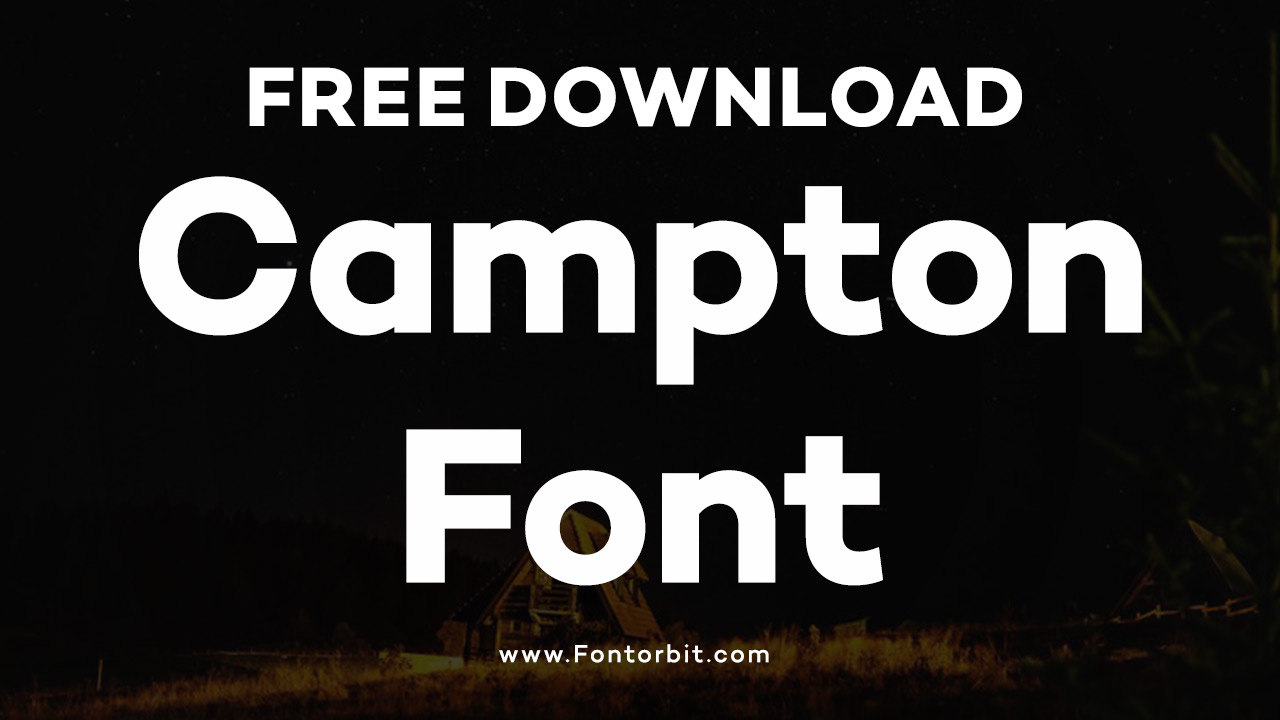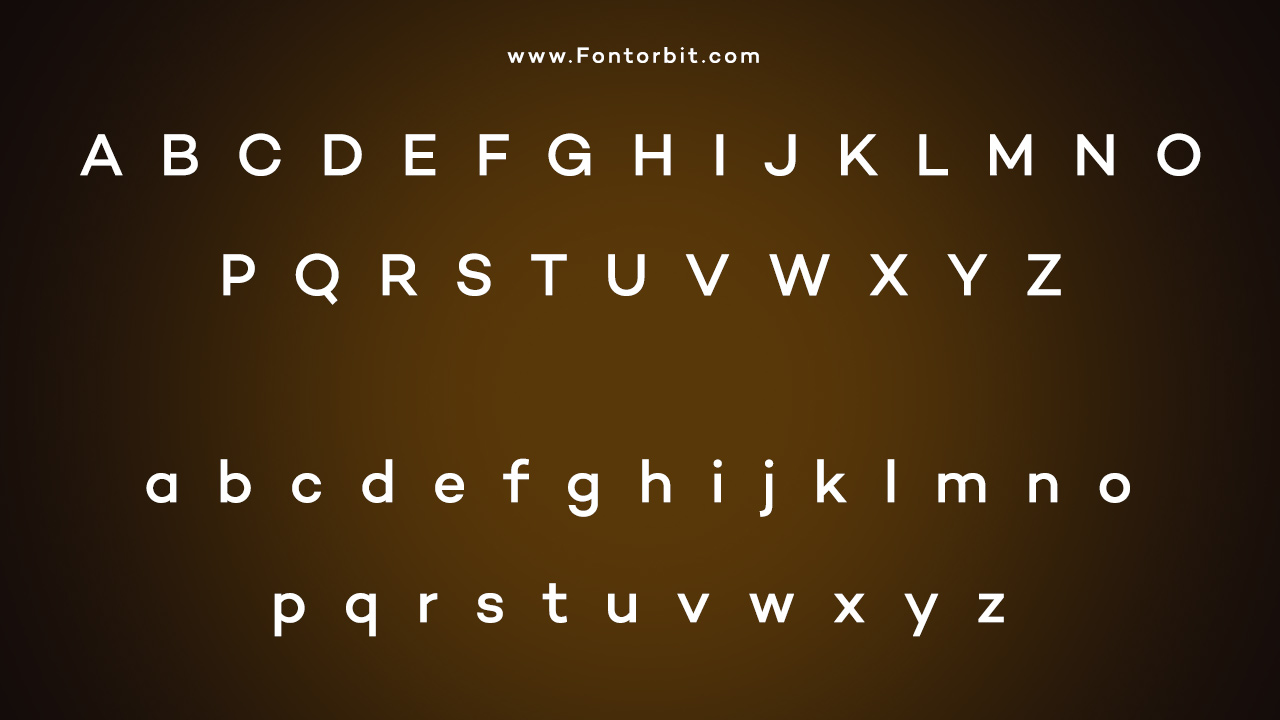
Campton Font is a modern and minimalist typeface designed by Rene Bieder. First published in 2014, it belongs to the Sans-Serif font family and is known for its clean, geometric look.
The classic grotesque styles inspired it but offer a more modern and neutral feel, making it highly versatile for various design projects.
Campton offers various font weights and styles, perfect for diverse design needs. Thanks to its readability and clean aesthetic, it is a great choice for both web and print projects.
Notable Uses Of Campton Font
Campton’s versatility suits branding, logo design, website headers, and editorial work. It has been widely used in advertisements, corporate identity designs, and product packaging, where simplicity and legibility are key factors.
Due to its clean and neutral style, Campton can be used in various applications. Some popular uses include:
- Website design (headers, body text)
- Corporate branding and logos
- Editorial layouts for magazines and brochures
- Signage and product packaging
- App interfaces and digital media content
Campton font is excellent for anyone seeking a clean, modern design with geometric roots. It is versatile, readable, and can be applied to various projects. Whether you are designing a logo, creating website content, or developing print media, Campton offers a perfect balance of simplicity and style.
2.Is Campton A Sans-Serif Font?
Yes, Campton is a Sans-Serif typeface.
3.Can I Use Campton For My Logo?
Yes, Campton is widely used for logo design due to its modern and neutral look.